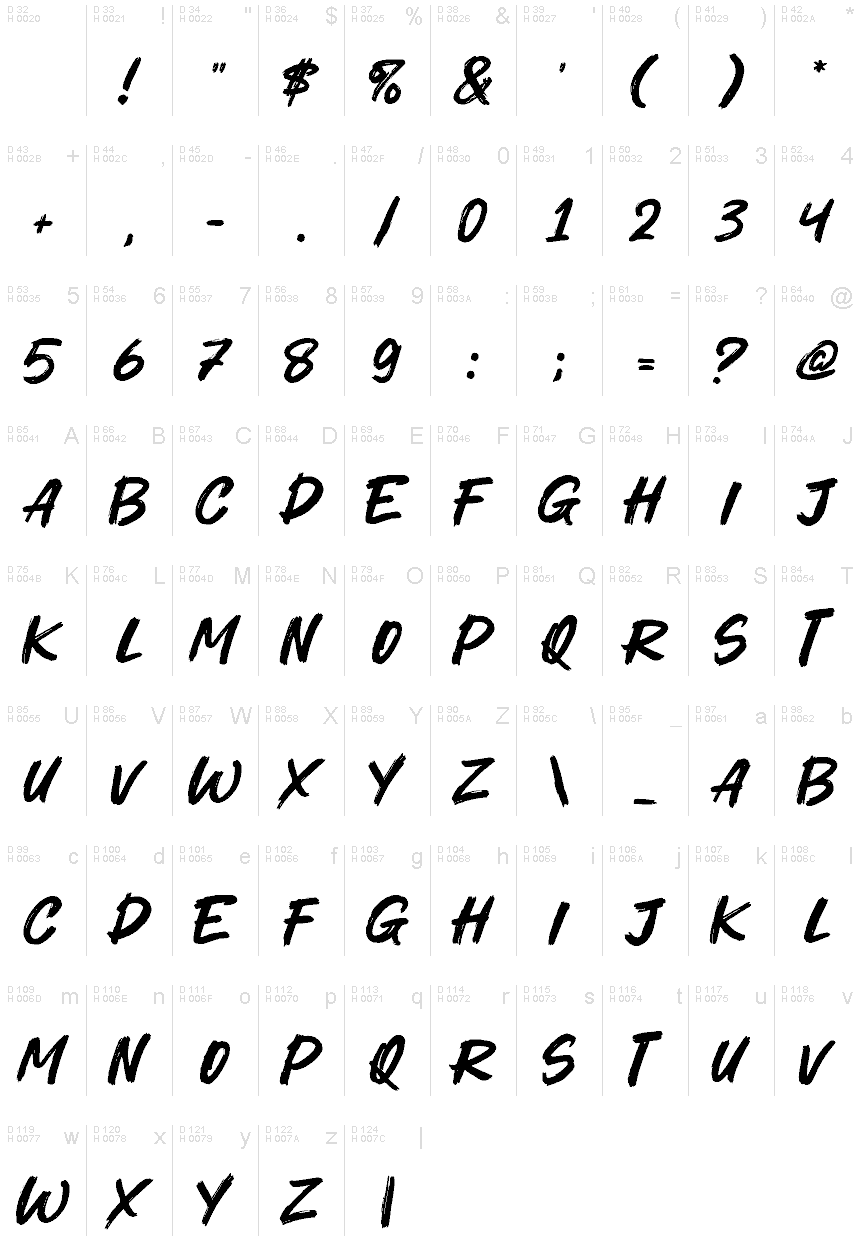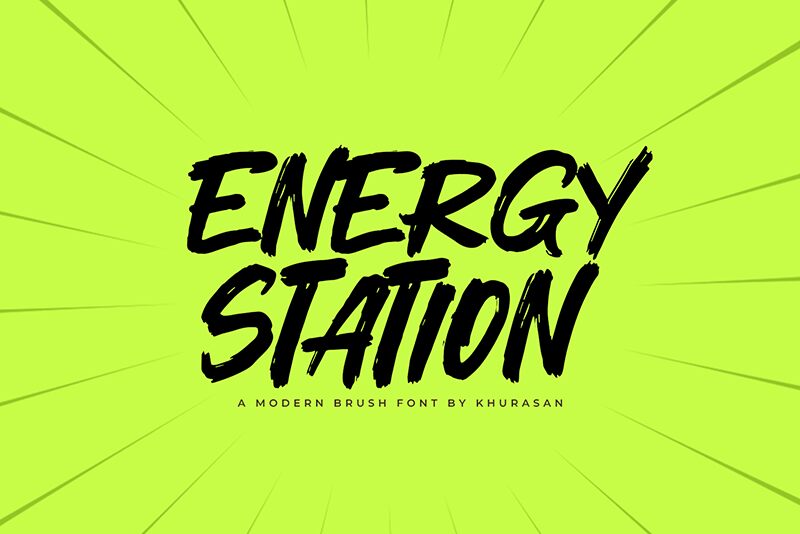
Energy Station
Energy Station font is a free brush font designed by Khurasan to manifest control and lack of it at the same time. The letters while connected together seem to go out of their way for smoothness, but they are never able to achieve it due to the aggressive strokes used. However nice the letters are gonna look because they were handwritten, still the appearance seems very raw.
Use Energy Station in invitations, notebook covers, posters, online ads or video ads. Cds covers for Digital music can also work perfectly with this high energy font just as album and book covers.